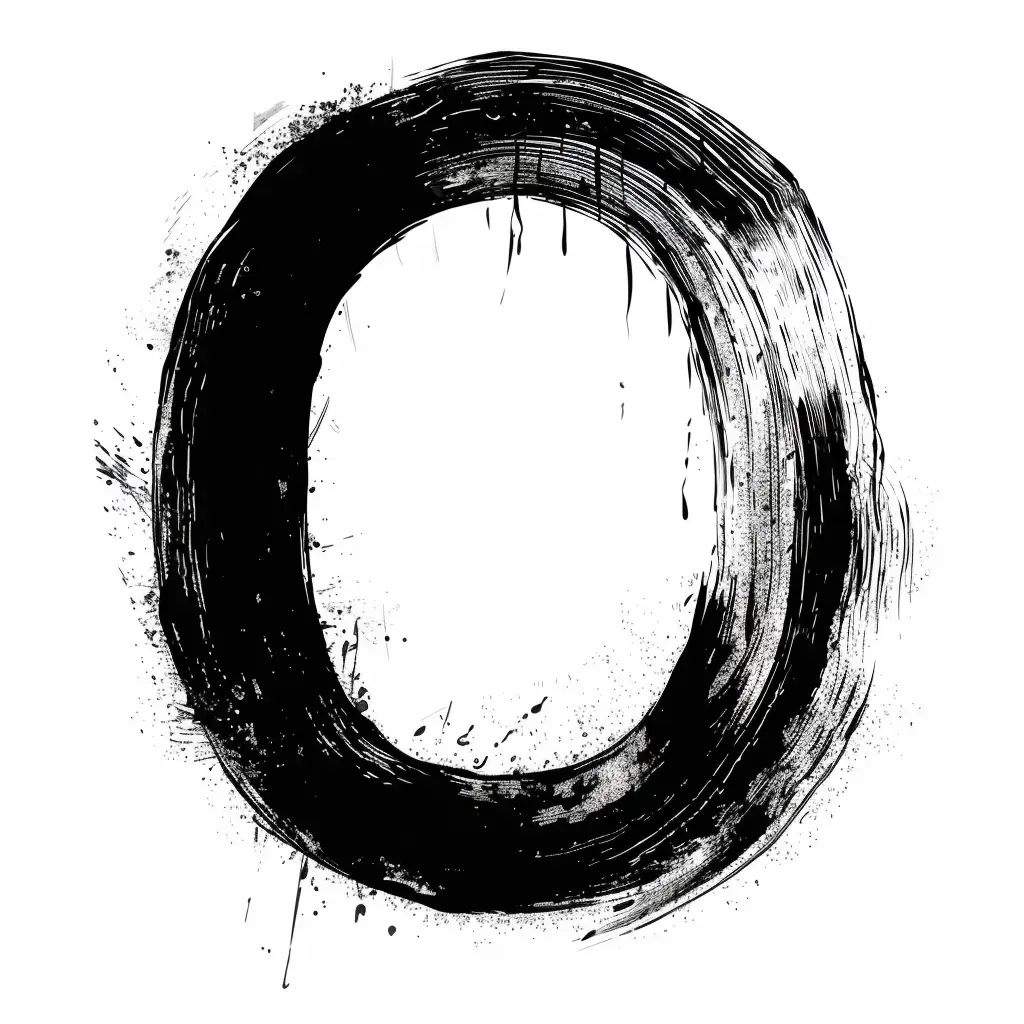
This image features a bold, hand-painted black circular shape resembling an "O" or enso, rendered with rough, textured brushstrokes and dynamic splatters. The monochromatic design uses stark black against a clean white background, emphasizing the organic, expressive style of the brushwork and the contrast between the solid, irregular circle and the scattered ink droplets.